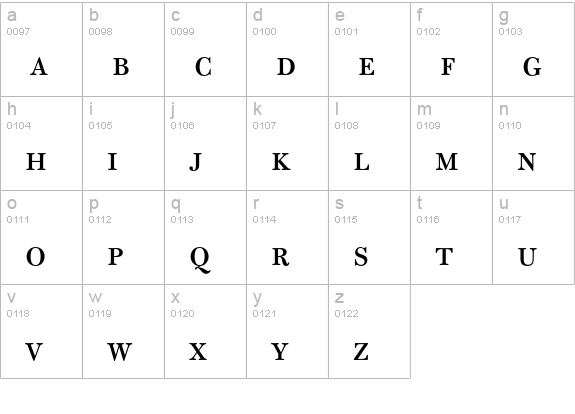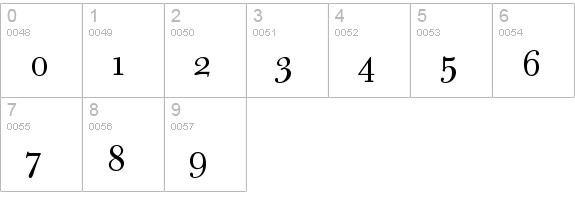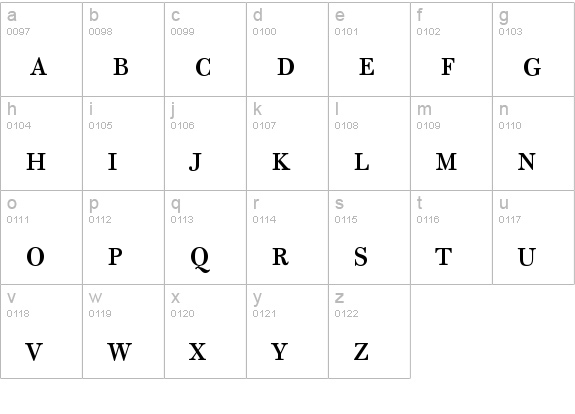
Bulmer MT Small Caps & OldStyle Figures Font Details
Bulmer MT Small Caps & OldStyle Figures font is a classic and elegant typeface that exudes sophistication and timeless charm. With its small caps and old-style figures, this font is perfect for adding a touch of traditional elegance to any design project. The delicate serifs and balanced proportions of Bulmer MT give it a refined and polished look that is sure to impress. What sets Bulmer MT apart is that it is freely available to download at FontsMarket.com. This means that you can easily access this high-quality font for your personal and commercial projects without any cost. Whether you're working on a branding project, editorial design, or any other creative endeavor, Bulmer MT Small Caps & OldStyle Figures font is a versatile and reliable choice that will elevate your work to the next level. Enhance your design with the timeless appeal of Bulmer MT today!